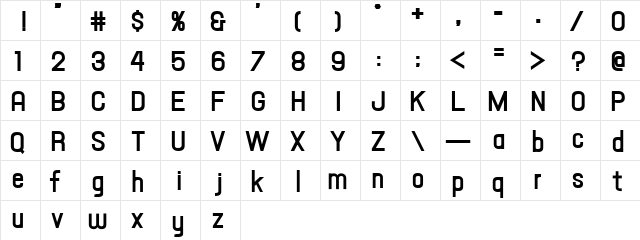
Hallandale Text Bold JL Regular
Design Context for Hallandale Text Bold JL Typeface
Hallandale Text Bold JL is a composed and adaptable typeface that performs quietly and consistently across a wide range of design contexts. The heavy weight commands attention and anchors typographic hierarchies.